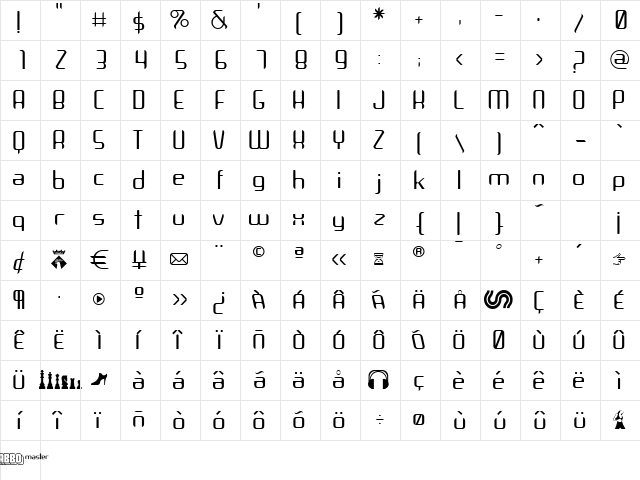
Arbeka Light
Design Context for Arbeka
Arbeka is a composed and adaptable typeface that performs quietly and consistently across a wide range of design contexts. Its slender proportions lend an understated elegance to any composition.